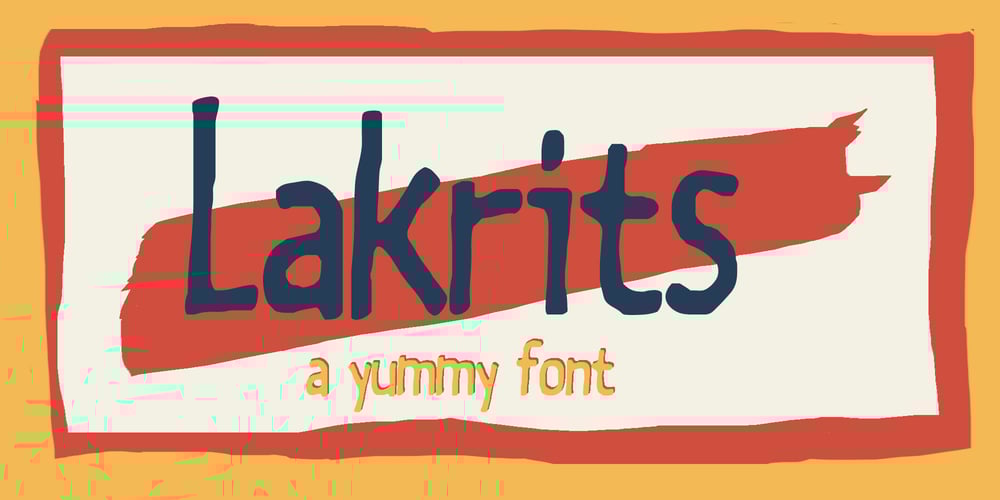
Lakrits Font Family was designed by Joachim Frank and published by Joachim Frank. Lakrits contains 1 styles and family package options. This font was inspired by the LogosNazhdag font, but the font is narrower and softer. Suitable for headings, packaging, logos.Developed and digitized in Germany by Joachim Frank.